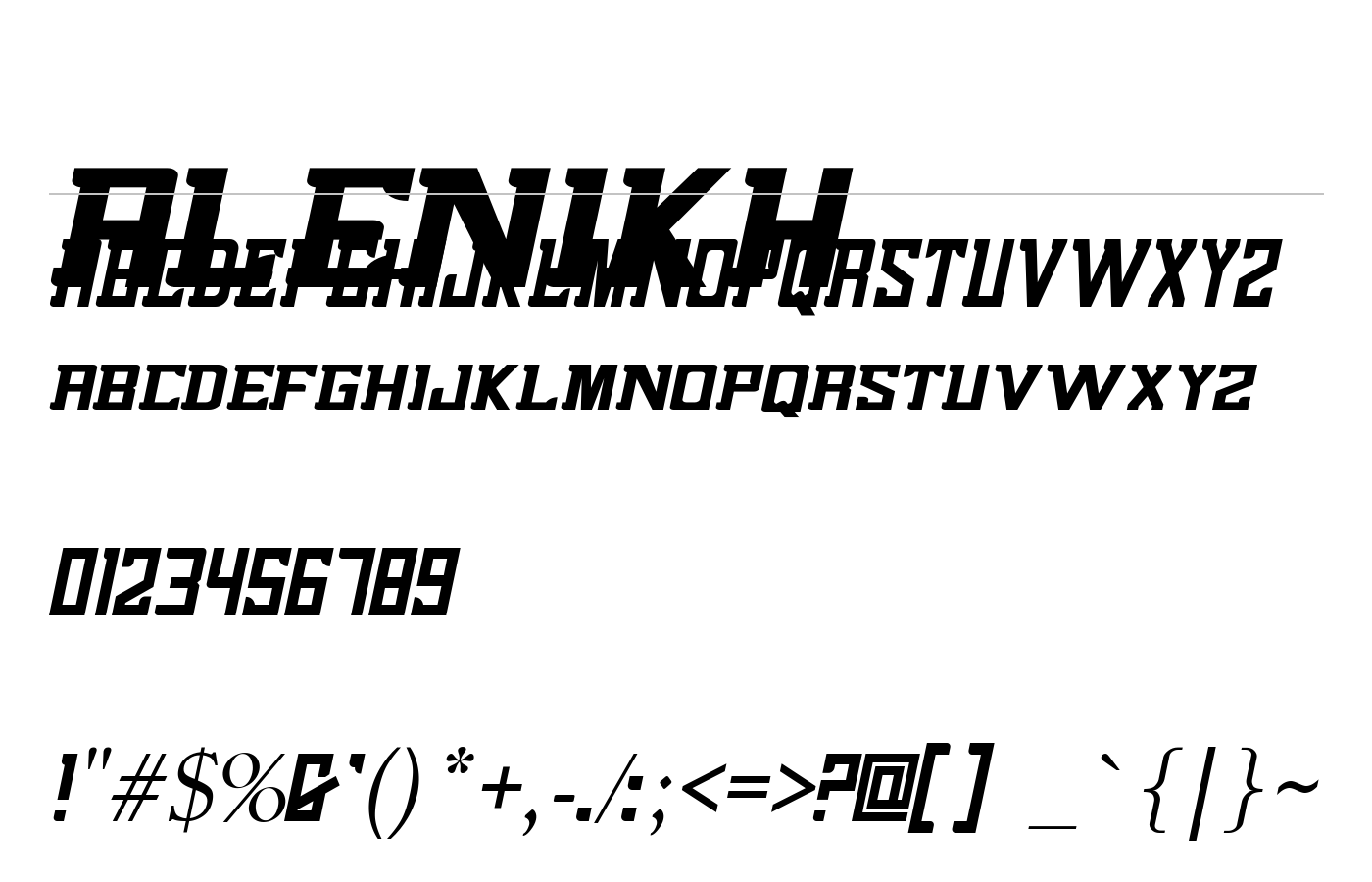
Alenikh is a bold, condensed sans serif typeface with a strong slant, giving it a dynamic, forward-moving feel. Its sharp, angular letterforms and high contrast strokes create a modern, sporty vibe ideal for branding, headlines, and posters where energy and impact are key. This font works well in designs that aim to be edgy and assertive, such as sportswear labels, tech companies, or urban-themed projects.